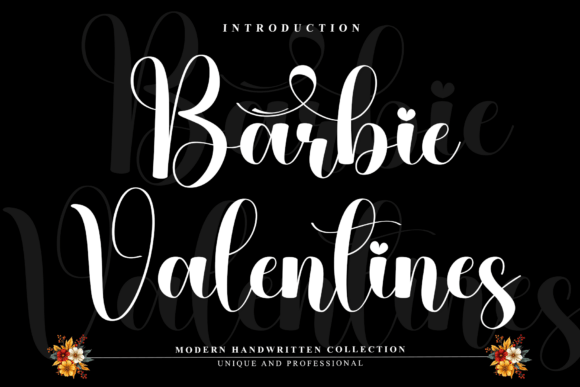
The Perfect Script for Love and Luxury
Have you ever stared at a blank page, pen in hand, waiting for the perfect font to emerge? For many designers, finding that elusive script can be a challenge, but what if I told you there’s a font that embodies the essence of romance and sophistication? As you sit down to craft your next Valentine’s Day project, let’s take a closer look at the Barbie Valentines Font – a handwritten script that will transport your words to a world of elegance and refinement.
With its unique blend of decorative swashes and clear letterforms, the Barbie Valentines Font is a game-changer for designers seeking a personal touch with a hint of romantic charm. Its dynamic, artistic quality makes it both modern and timeless, perfect for branding, invitations, and any project that requires a touch of luxury. Whether you’re a seasoned pro or a design newbie, this font is sure to elevate your creations and leave a lasting impression.
Barbie Valentines Font Key Features
- Font Style: A cursive, handwritten font with a feminine touch, ideal for Valentine’s Day or romantic designs.
- Unique Characteristics: The font features intricate, flowing lines and delicate flourishes, giving it a whimsical and romantic feel.
Barbie Valentines Font Review
Overall, I think the Barbie Valentines Font is a delightful, playful addition to any design project. The font’s cursive script and ornate details evoke a sense of whimsy and romance, making it perfect for Valentine’s Day-themed designs or any project that needs a touch of femininity. ✨
The font’s varied letterforms and flourishes add visual interest and create a sense of movement, making it engaging to read. I also appreciate the font’s versatility – it can be used for a range of applications, from invitations to social media graphics. ✨
- Playful, whimsical feel
- Perfect for Valentine’s Day or romantic designs
- Versatile and suitable for various applications
- Engaging to read due to varied letterforms and flourishes
- ⚠️ The font may be too ornate or cursive for some design projects, making it difficult to read in certain contexts
- ⚠️ Limited character set – may not be suitable for projects that require a wide range of characters or languages
Overall, I think the Barbie Valentines Font is a great addition to any designer’s toolkit. While it may have some limitations, its playful, whimsical feel and versatility make it a valuable resource for a range of design projects.
The Barbie Valentines Font is perfect for creating Valentine’s Day-themed designs, such as:
- Valentine’s Day cards and invitations